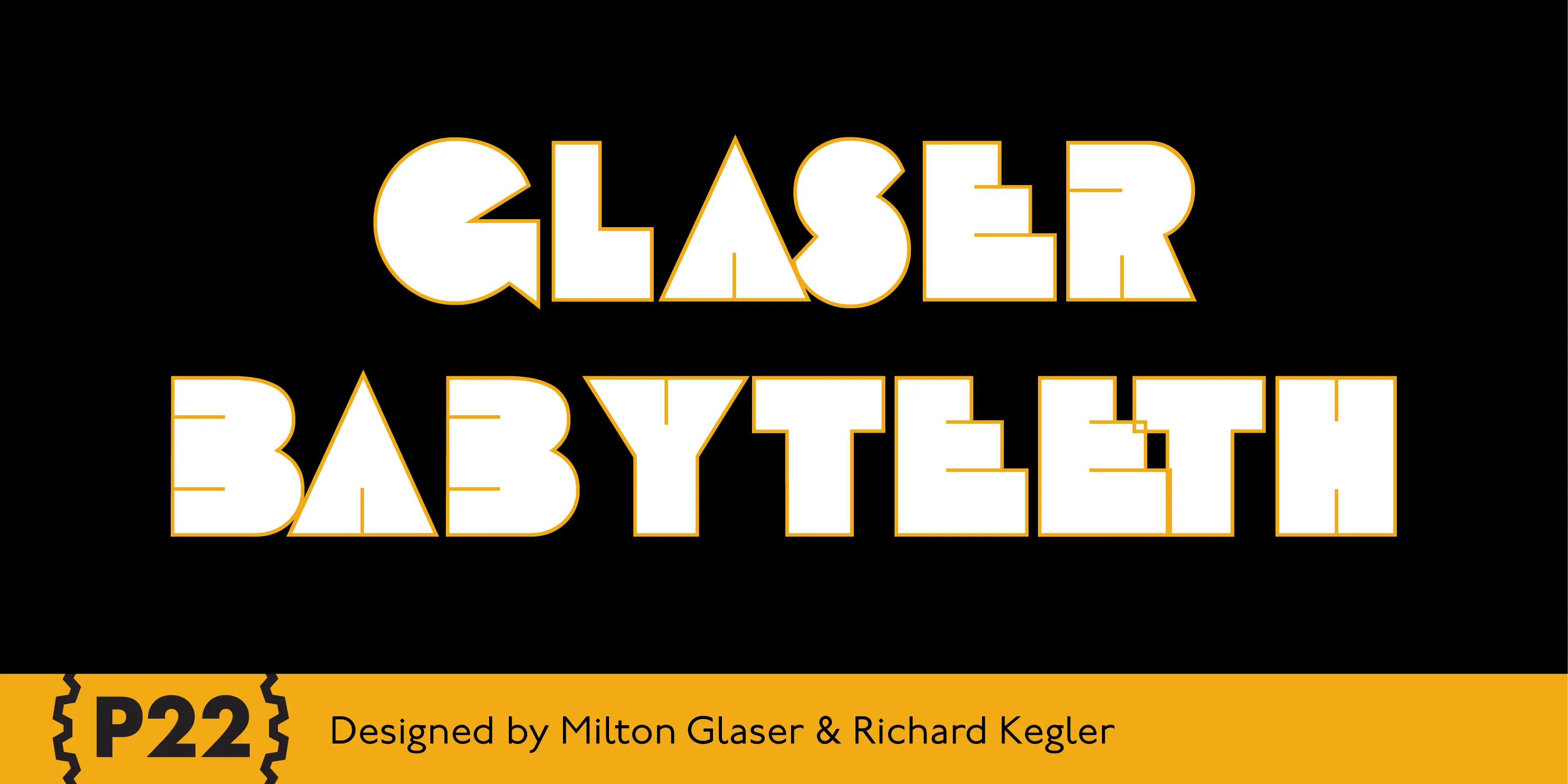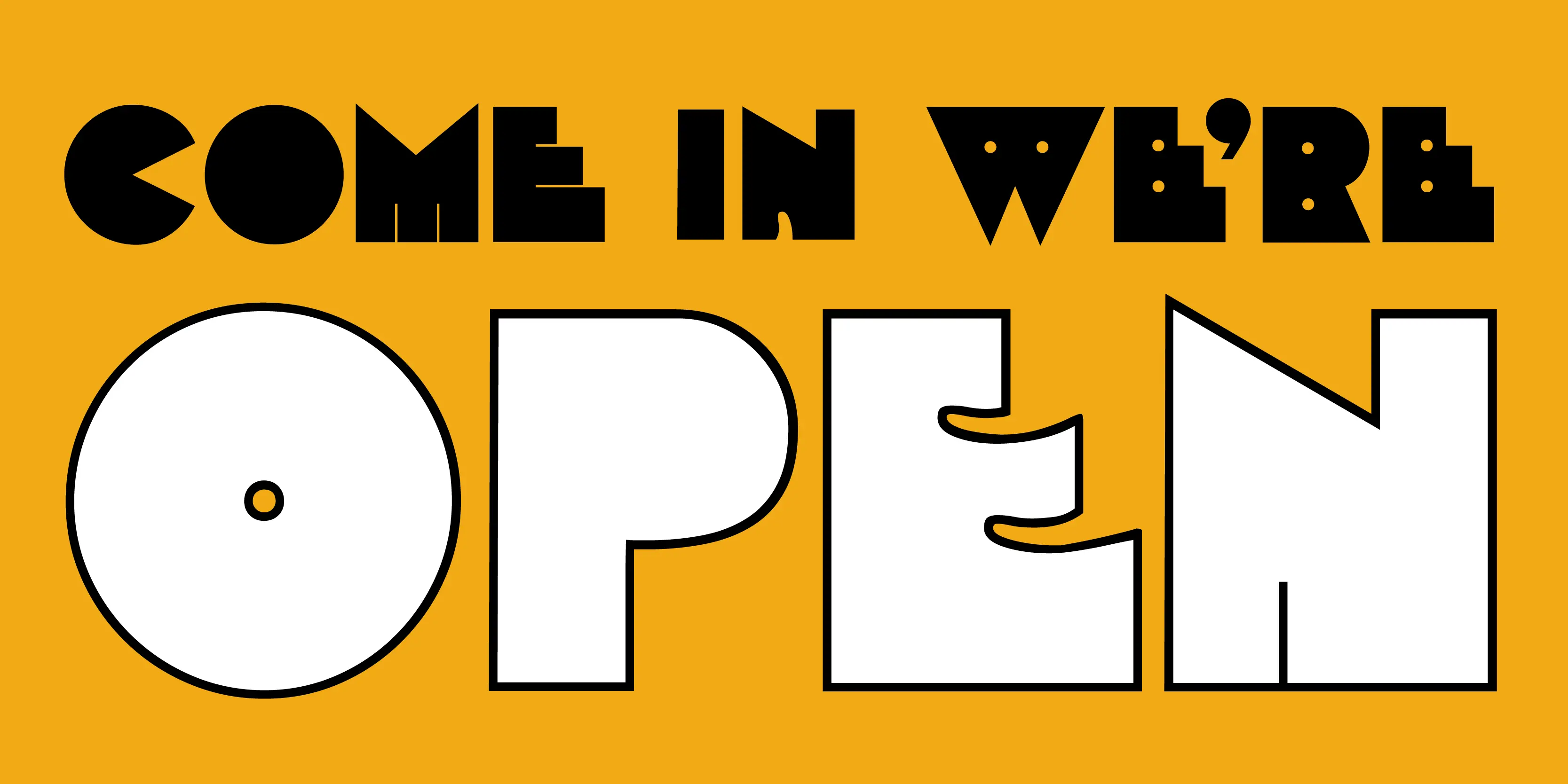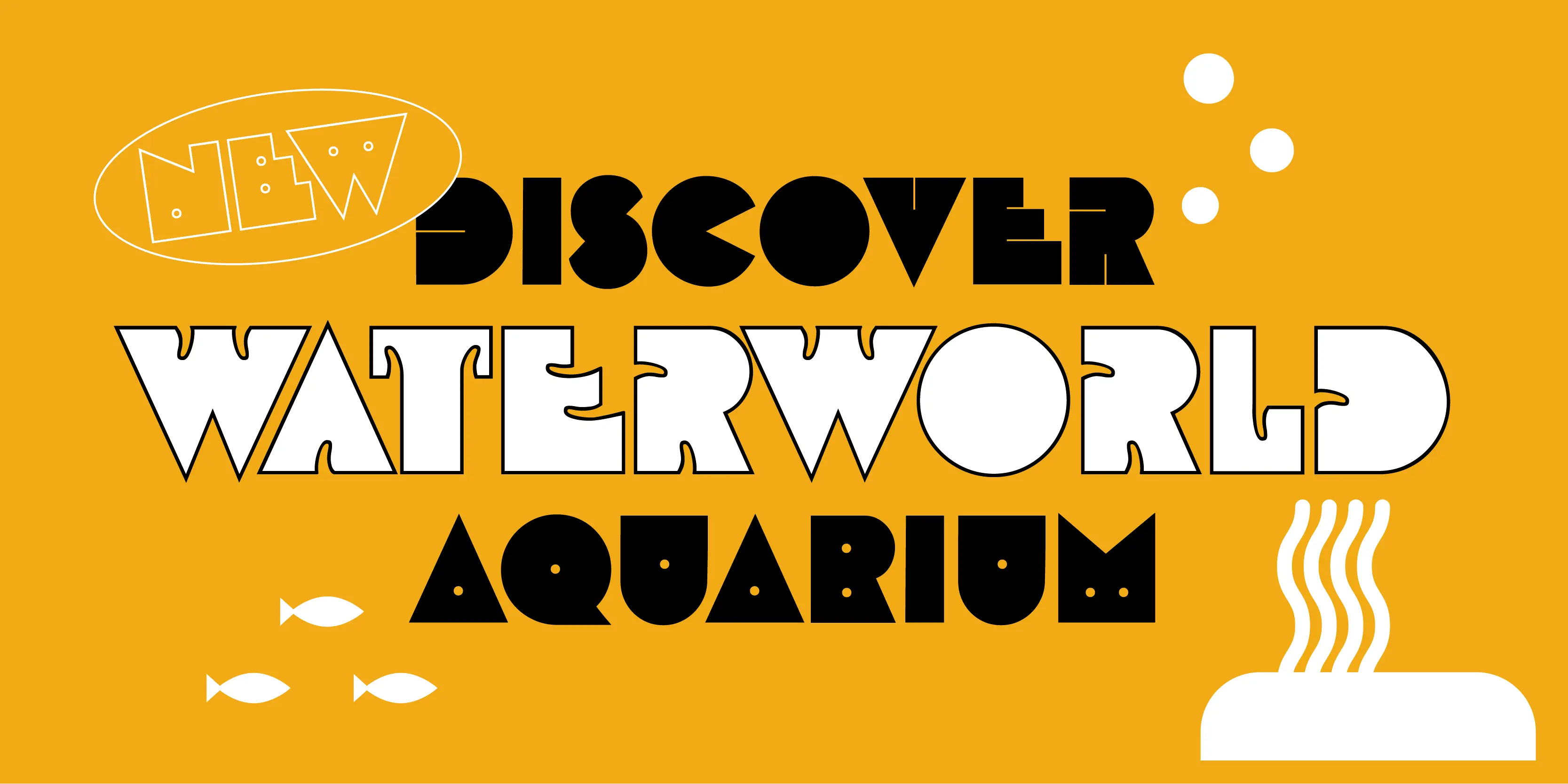
Glaser Babyteeth Font Family
• Glaser Babyteeth Baroque
• Glaser Babyteeth Dot
• Glaser Babyteeth FillBaroque
• Glaser Babyteeth Line
• Glaser Babyteeth Open
• Glaser Babyteeth Open Baroque
• Glaser Babyteeth Open Dot
• Glaser Babyteeth Open Line
• Glaser Babyteeth Solid
Glaser Babyteeth
In 2019, P22 Type Foundry met with Milton Glaser (1929–2020) to initiate the official digital series of typefaces designed by Glaser in the 1960s and 70s. P22 Glaser Babyteeth is the first family released in the series. According to Glaser: “The inspiration for my Babyteeth type face came from this sign I photographed in Mexico City. It’s an advertisement for a tailor. The E was drawn as only someone unfamiliar with the alphabet could have conceived. Yet it is completely legible. I tried to invent the rest of the alphabet consistent with this model.” P22 Glaser Babyteeth was based on original drawings and phototype proofs from the Milton Glaser Studios archives. Over the years there have been many typefaces that borrowed heavily from the Glaser designs, but these are the only official Babyteeth fonts approved by Milton Glaser Studio and the Estate of Milton Glaser. The solid and open versions are designed to overlap for two-color font effects and can even be mixed and matched for multi layer chromatic treatments. Babyteeth includes an expanded character set to support the majority of Latin languages.